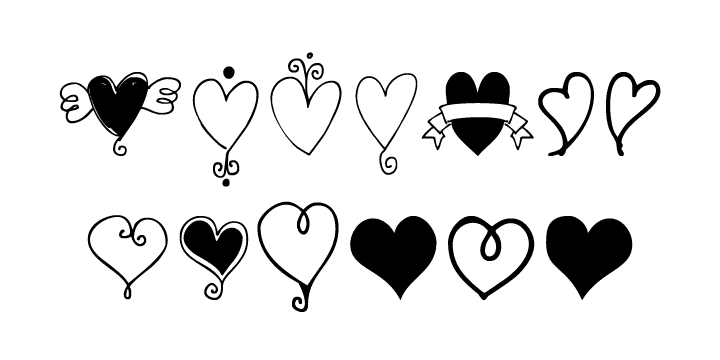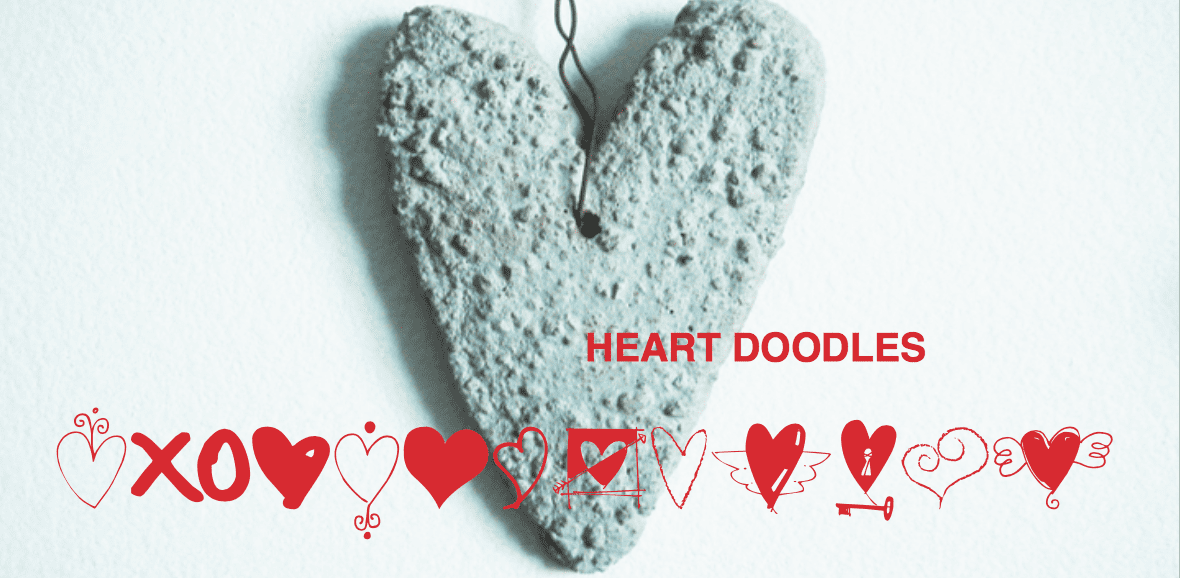
Heart Doodles (1 font)
Some are stand-alone hearts and others have matching hearts for creating all-over heart patterns or a series of similar but slightly different hearts.
Created in the same style as Outside the Line's other Doodle fonts.